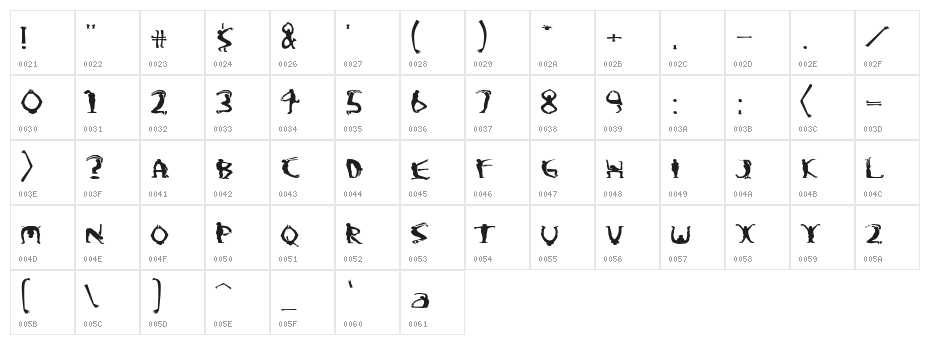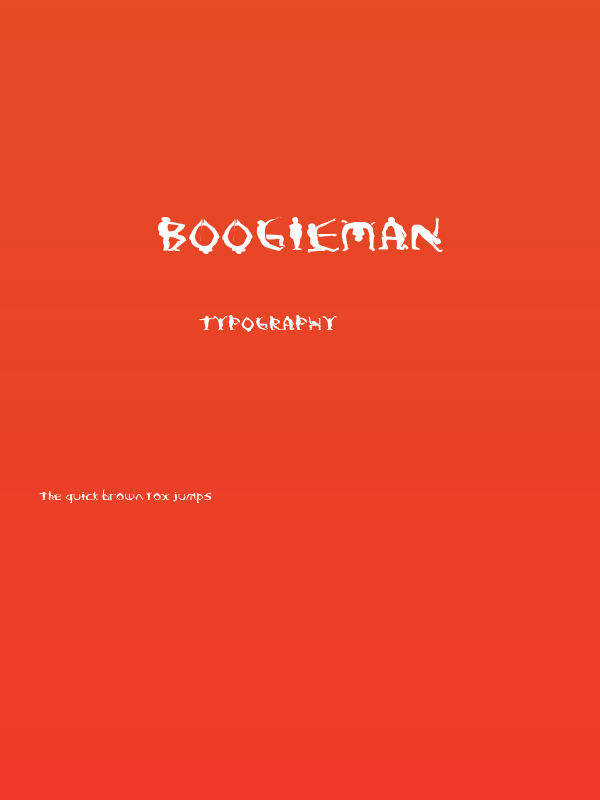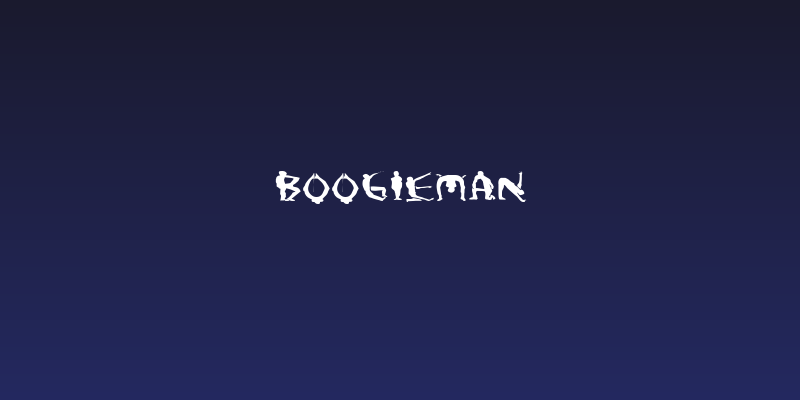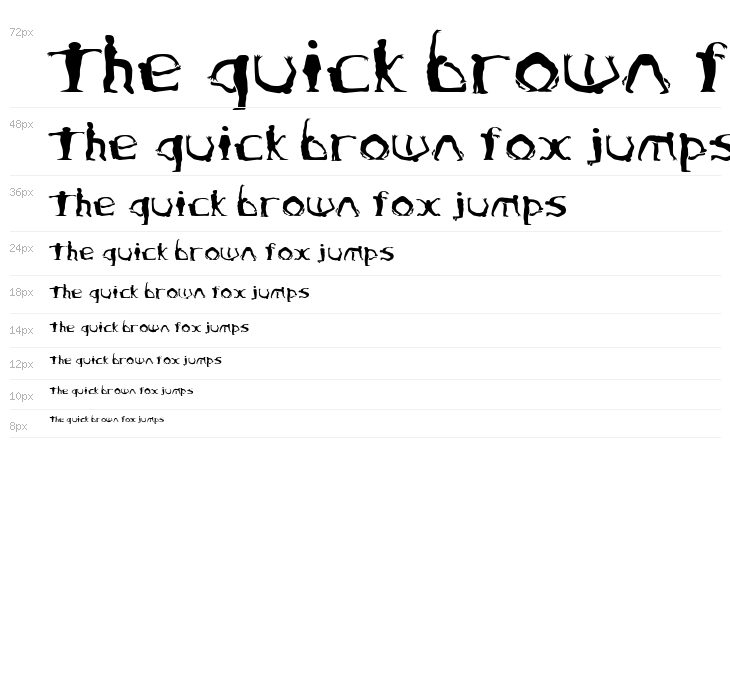
Boogieman Font
Boogieman Description
This font exudes a spooky and eerie vibe, with its jagged edges and irregular strokes that mimic the appearance of torn paper or claw marks. The characters are bold and dramatic, each letter appearing as if it has been scratched into the surface. The uppercase and lowercase letters maintain a consistent style, with exaggerated serifs and sharp angles that enhance the unsettling aesthetic. Numbers and special characters follow the same design principles, ensuring a cohesive look across all text elements. This font is perfect for creating a chilling atmosphere in designs, making it ideal for Halloween-themed projects or horror movie posters.